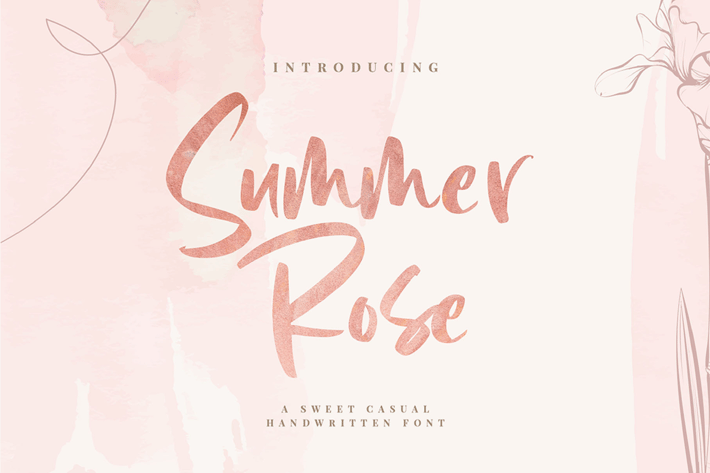
Beautiful Handwritten Font
Roses are the epitome of beauty, simplicity, and love. Summer provides us with warmth, laughter, and happiness. Combine the two and you get a shimmeringly spectacular combination.
Introducing Summer Rose - A Sweet, Casual Handwritten Font.
Summer Rose can be used for a variety of different content needs such as headings, logos, business cards, printed quotes, cards, packaging, resumes, and even your website or social media branding. Breathe the sweet-smelling freshness of Summer Rose into your branding and dazzle your guests, audience, or clients.
Let the world see your beautiful ideas with this Sweet, Casual Handwritten Font.
Multilingual & Ligature Support
Full sets of Punctuation and Numerals